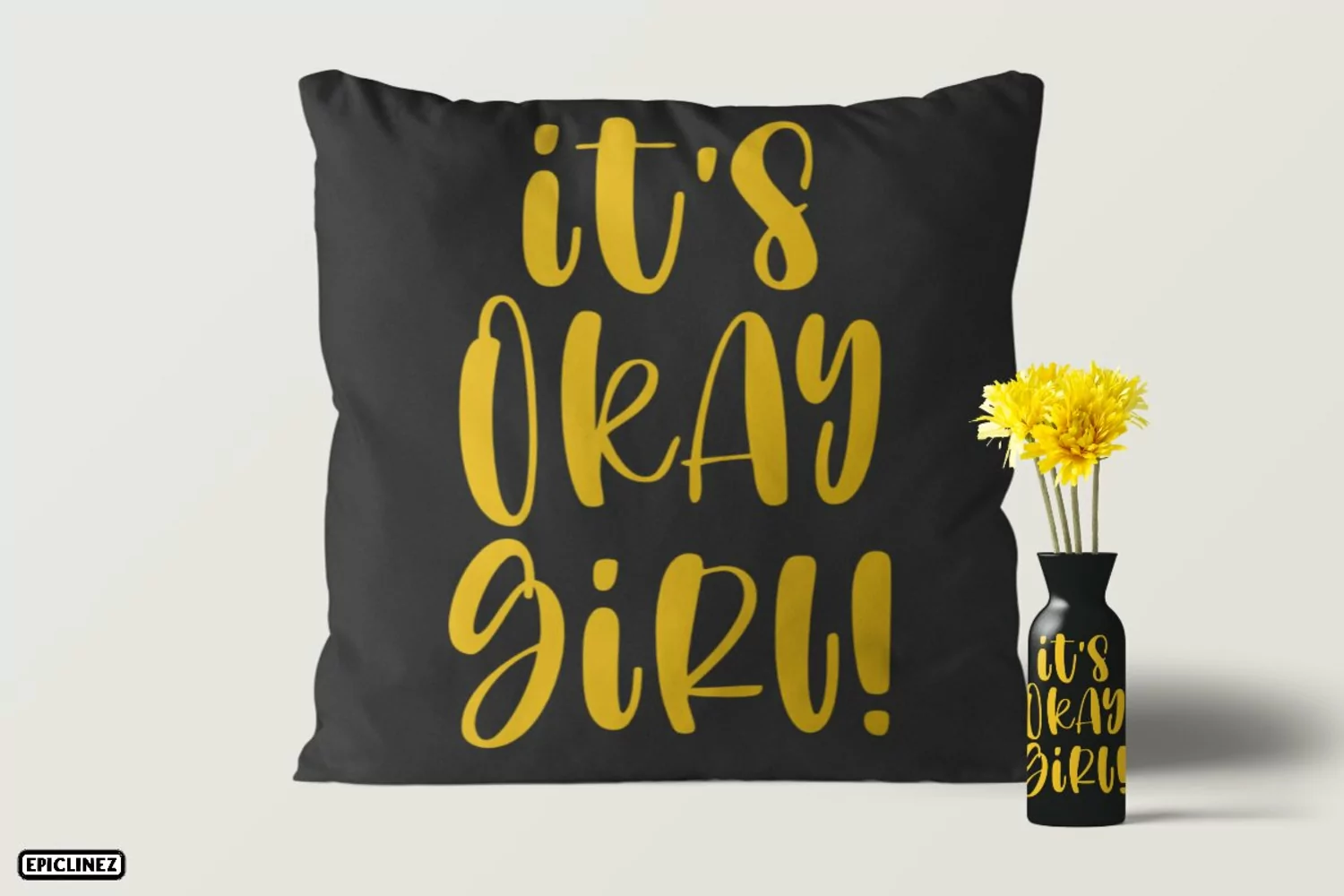
Summer Cracker is a simple, fun, and relaxed handwritten font. Whether you’re using it for crafting, digital designing, presentations, or greeting card making, it’s perfect!
Summer Crackers